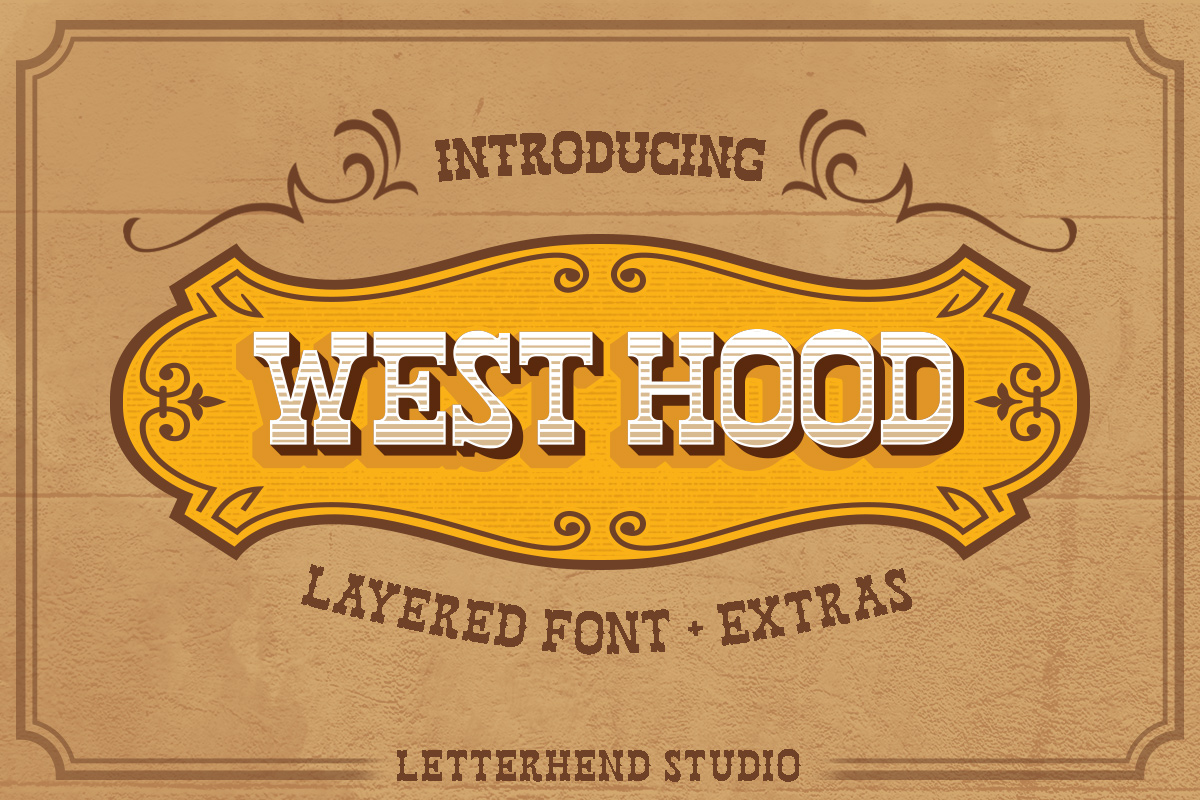
West Hood Font
West Hood Font is perfect for western movie titles, cowboy-themed restaurant branding, frontier adventure game interfaces, wild west entertainment venues, rustic ranch signage, saloon bar graphics, western heritage museum displays, rodeo event promotions, frontier town tourism marketing, and authentic western merchandise designs. This rugged typeface brings frontier authenticity to western lifestyle brands, cowboy equipment manufacturers, ranch vacation destinations, western-themed entertainment companies, and frontier historical organizations.
West Hood Font is exciting because it embodies the rugged independence and frontier spirit of the American West through its authentically weathered letterforms that tell stories of cowboys, outlaws, and pioneer adventure. The font features bold characters with frontier proportions and weathered details that evoke dusty trails, wooden saloon signs, and the untamed landscape of the western frontier. Its distinctive construction demonstrates frontier craftsmanship with carefully aged elements that create an immediate sense of western authenticity and pioneer heritage. The font's frontier presence and western authenticity make it perfect for brands seeking to communicate rugged independence, frontier adventure, and the timeless appeal of western heritage in their visual communications.
West Hood Font family includes various frontier styles: Light, Regular, Bold, Black, Weathered, Rustic, Frontier, Outlaw, Condensed, Extended, Saloon, and Pioneer variants. Each family member maintains the core western DNA while offering different levels of ruggedness for diverse frontier design applications. The comprehensive font collection ensures consistent western branding across frontier campaigns, cowboy products, and western heritage communication materials.
Whether you're creating western brand identities, designing frontier marketing materials, developing cowboy website headers, or crafting western-themed promotional campaigns, West Hood Font delivers outstanding frontier appeal and western authenticity. The font's distinctive rugged personality excels in western logos, frontier packaging design, cowboy applications, and heritage projects where western authenticity and frontier spirit are essential.